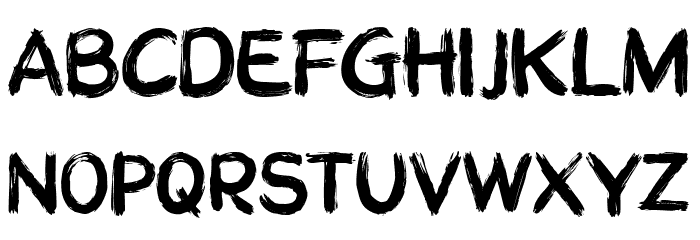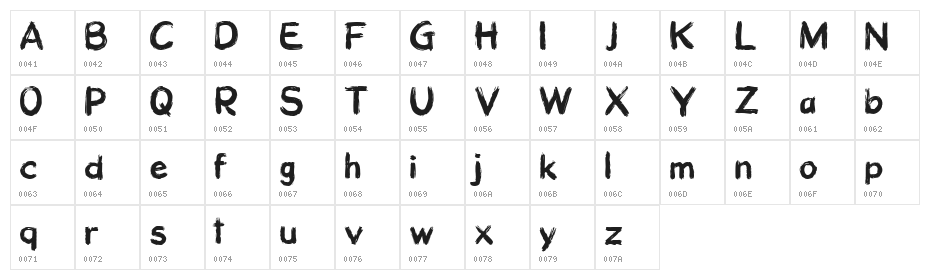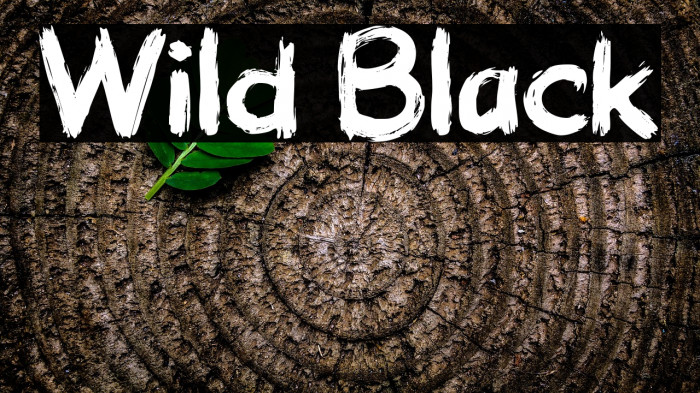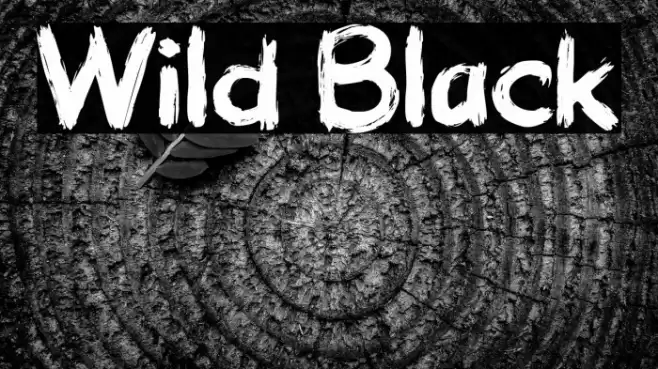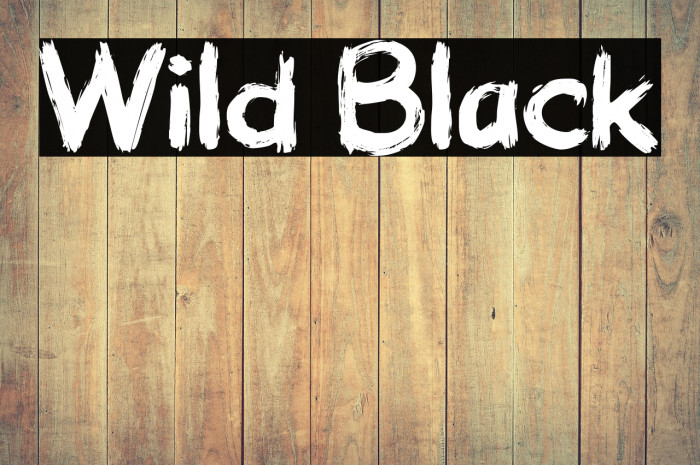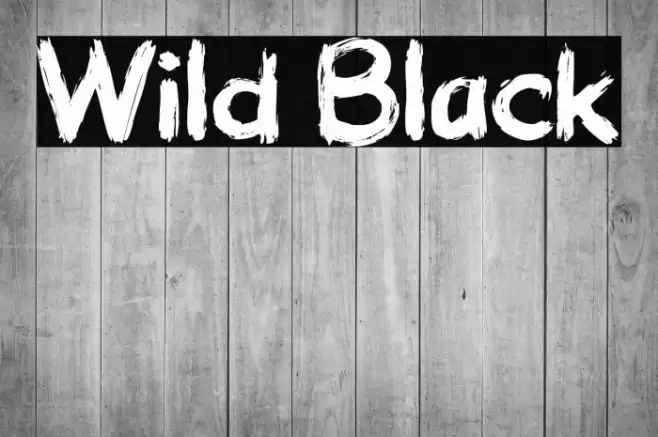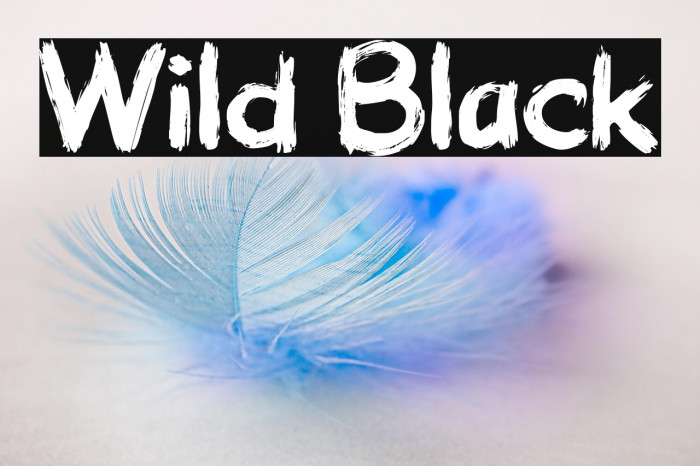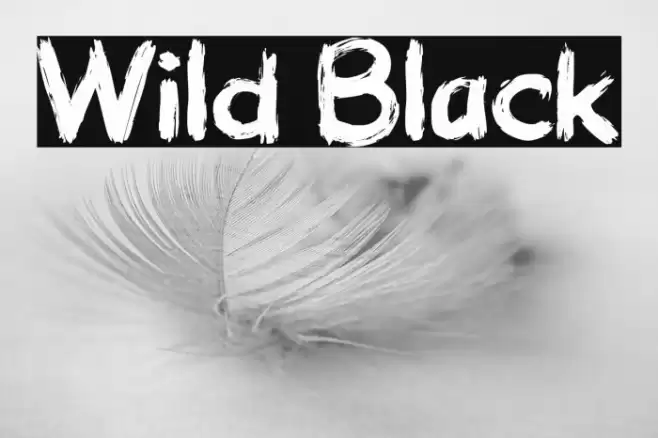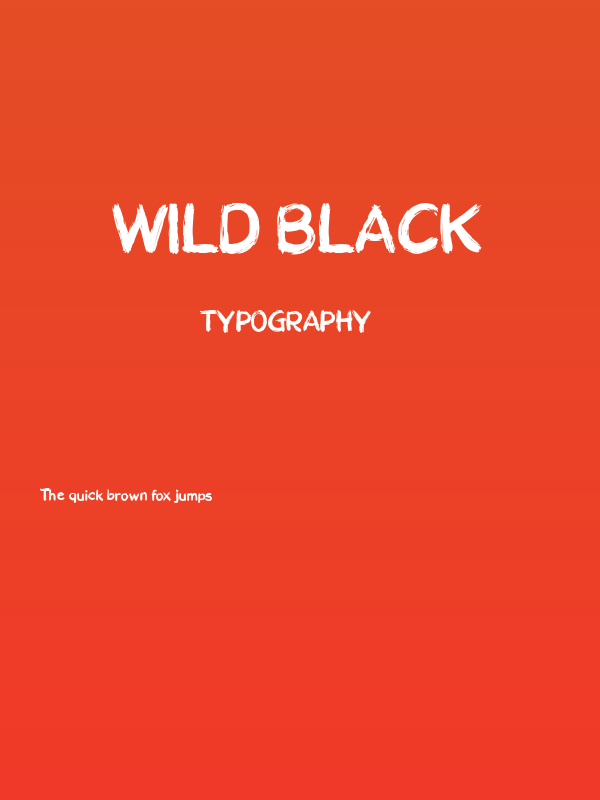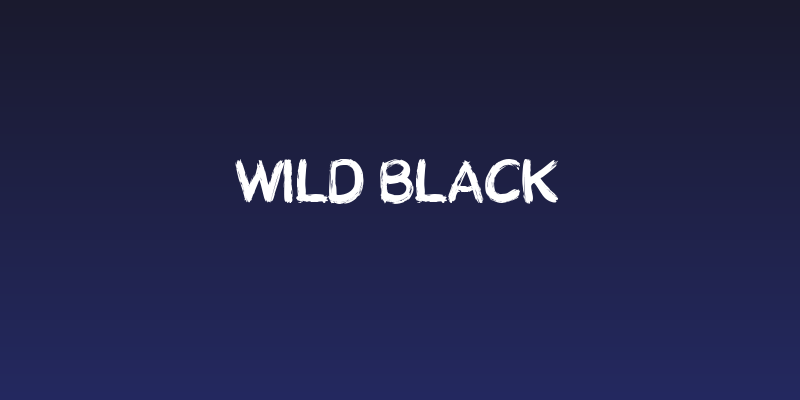
Wild Black Font
Wild Black Description
This font features a bold, brush-like appearance that gives it a dynamic and energetic feel. The strokes are uneven and textured, resembling hand-painted letters with a rough, artistic edge. Each character has a unique flair, with varying thicknesses and a slightly irregular baseline, adding to its handcrafted look. The font maintains a consistent height across uppercase and lowercase letters, ensuring readability while preserving its artistic style. The numbers and special characters follow the same design principles, making them cohesive with the alphabetic characters.
| Proposed Projects | Ideal for creative projects such as posters, album covers, and branding that require a bold, artistic statement. |